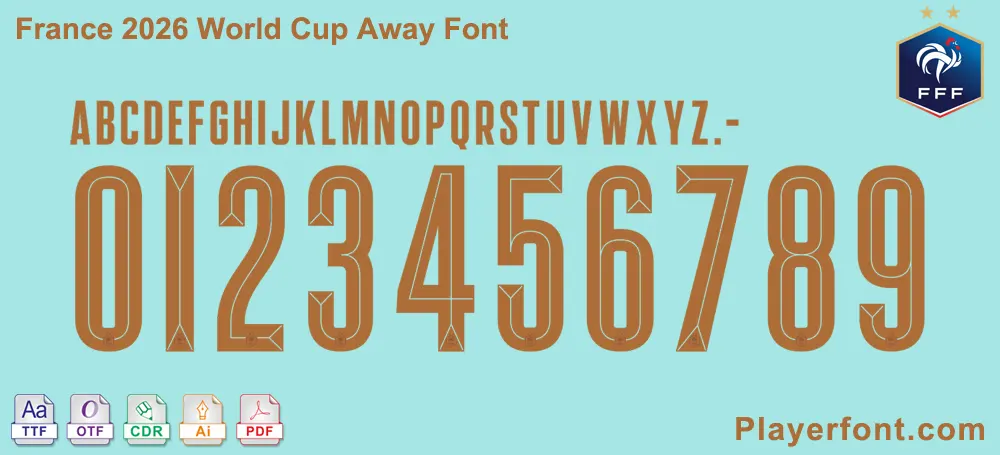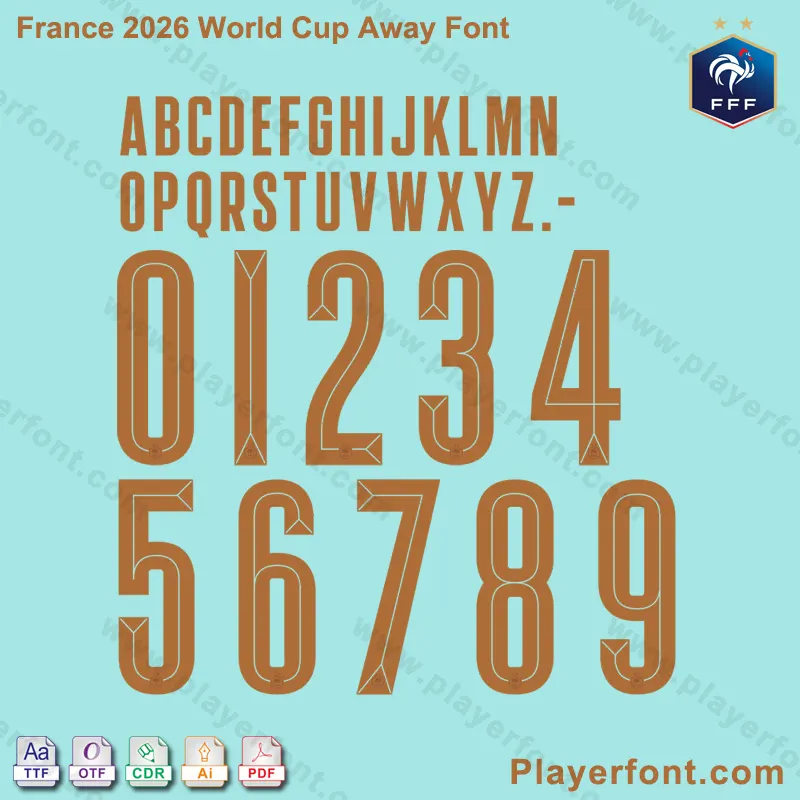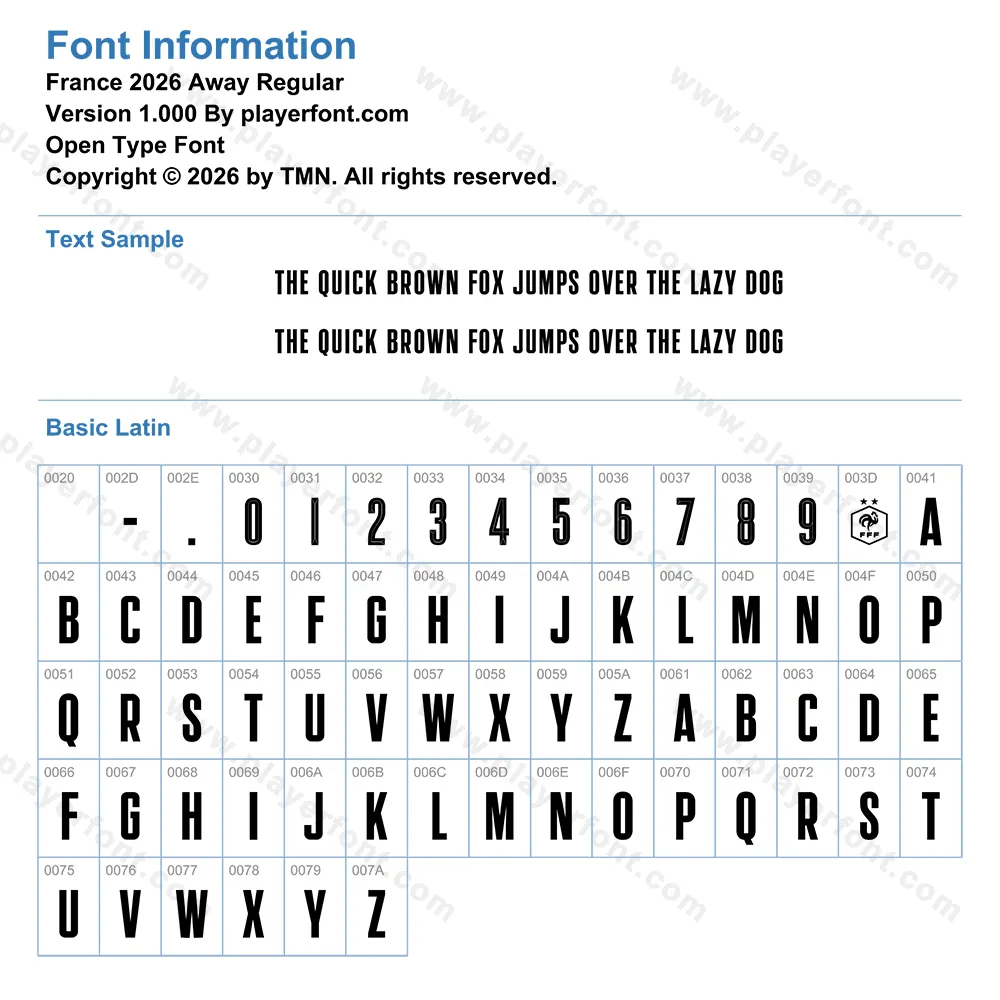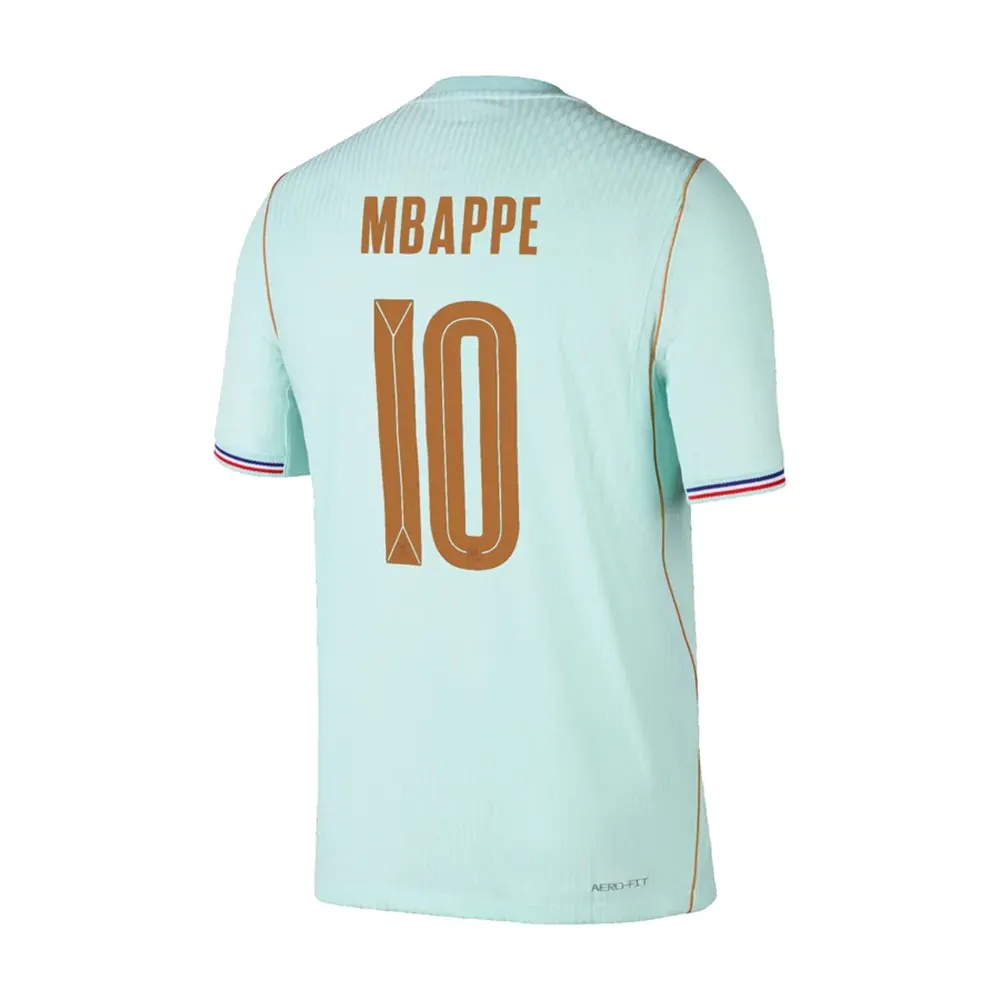
Elevate your creative projects with the France 2026 World Cup Away Font. Inspired by the latest “Les Bleus” aesthetic for the 2026 tournament, this font features a refined, modern, and elegant style that perfectly complements the French national team’s identity. Ideal for designers, fan-shirt makers, and jersey customizers.
- Design Style: Elegant 2026 World Cup Away Edition.